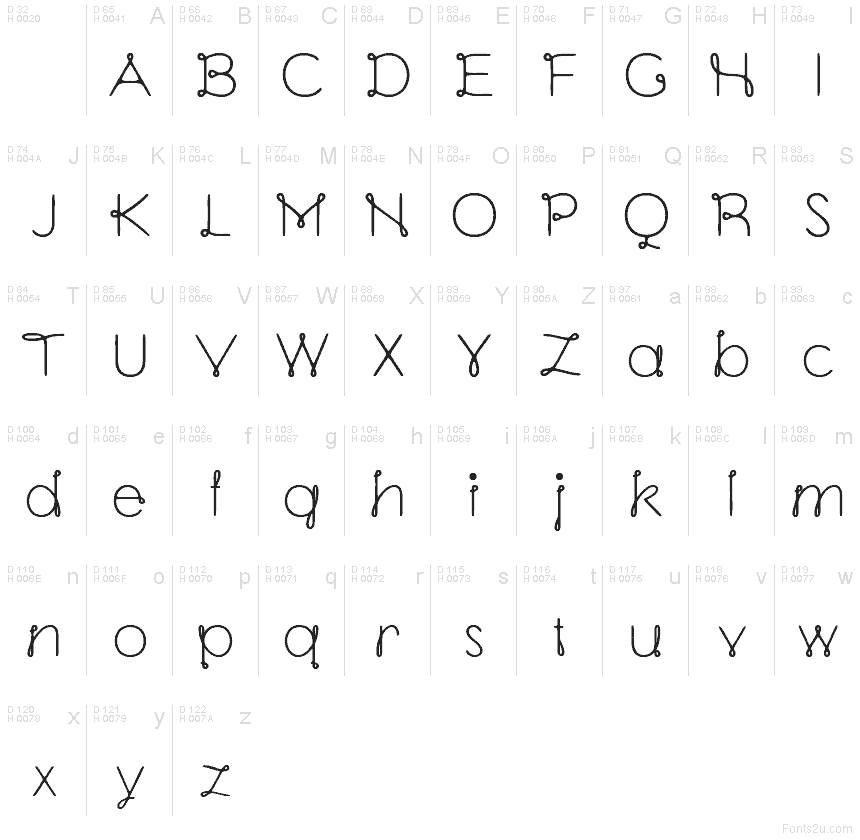
CS Quince Drawn font by Craft Supply Co. is a light decorative display font with casual elegance, minimalist designs, and sleek characters. Its letters boast extended clean strokes and slight curve detailing over many of its straightened forms. Some carry less intense curvature or none at all. uniquely designed terminals complement this sophisticated modernist typeface.
Posters, stylish magazine covers, logo design, headlines of various articles are all better off with a free addition from CS Quince Drawn’s letters. Packaging for luxury goods or other products will find this resource useful as well alongside wedding designs decor and invitations among many more!